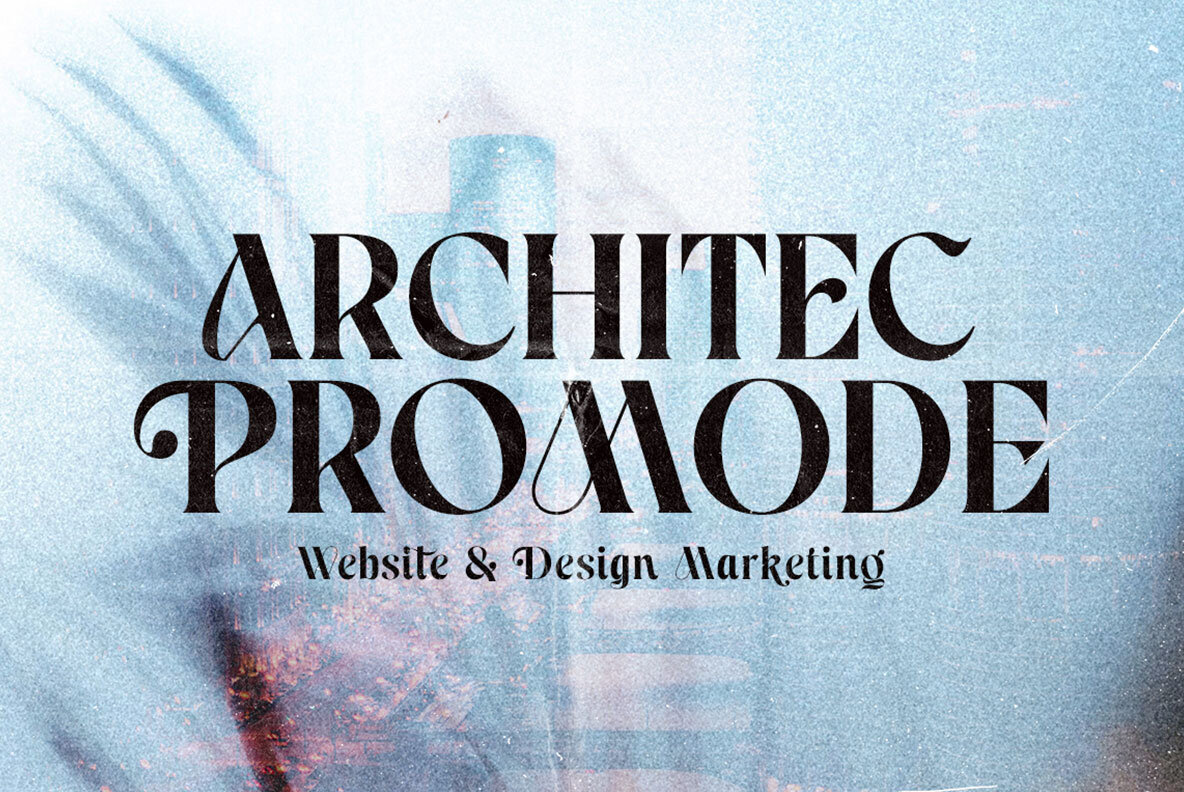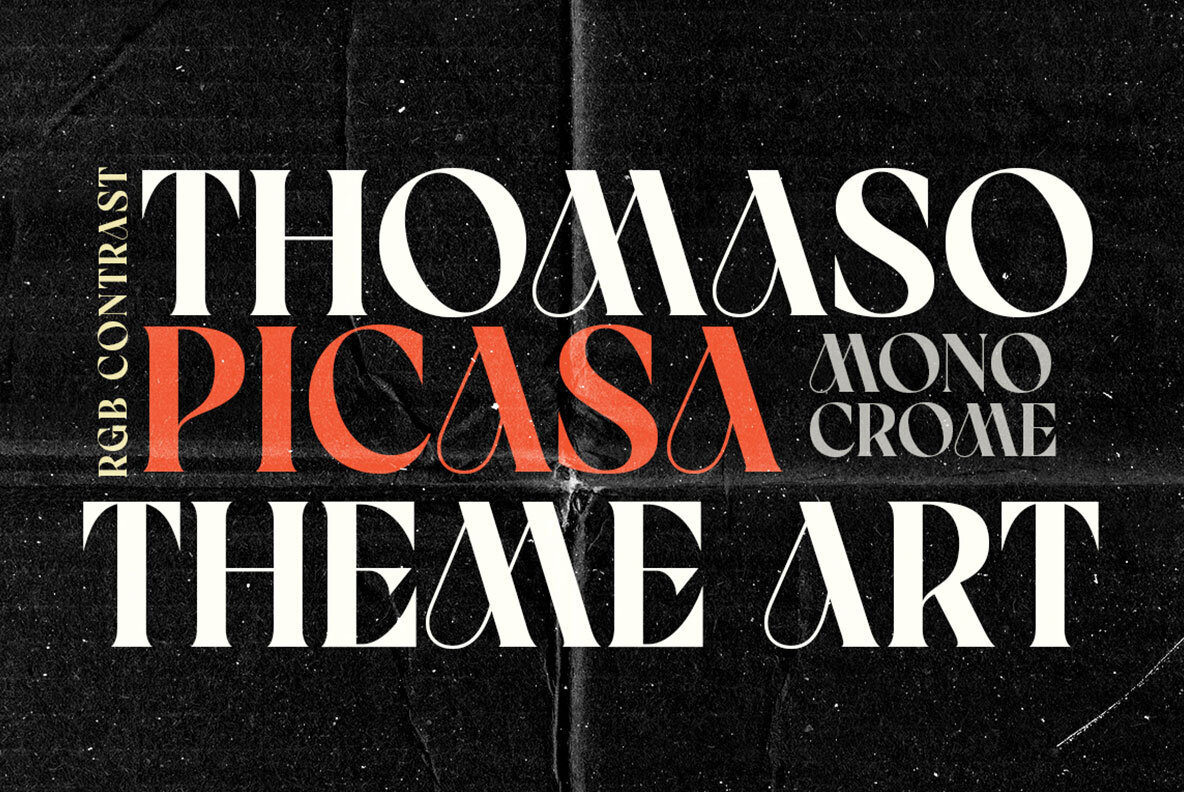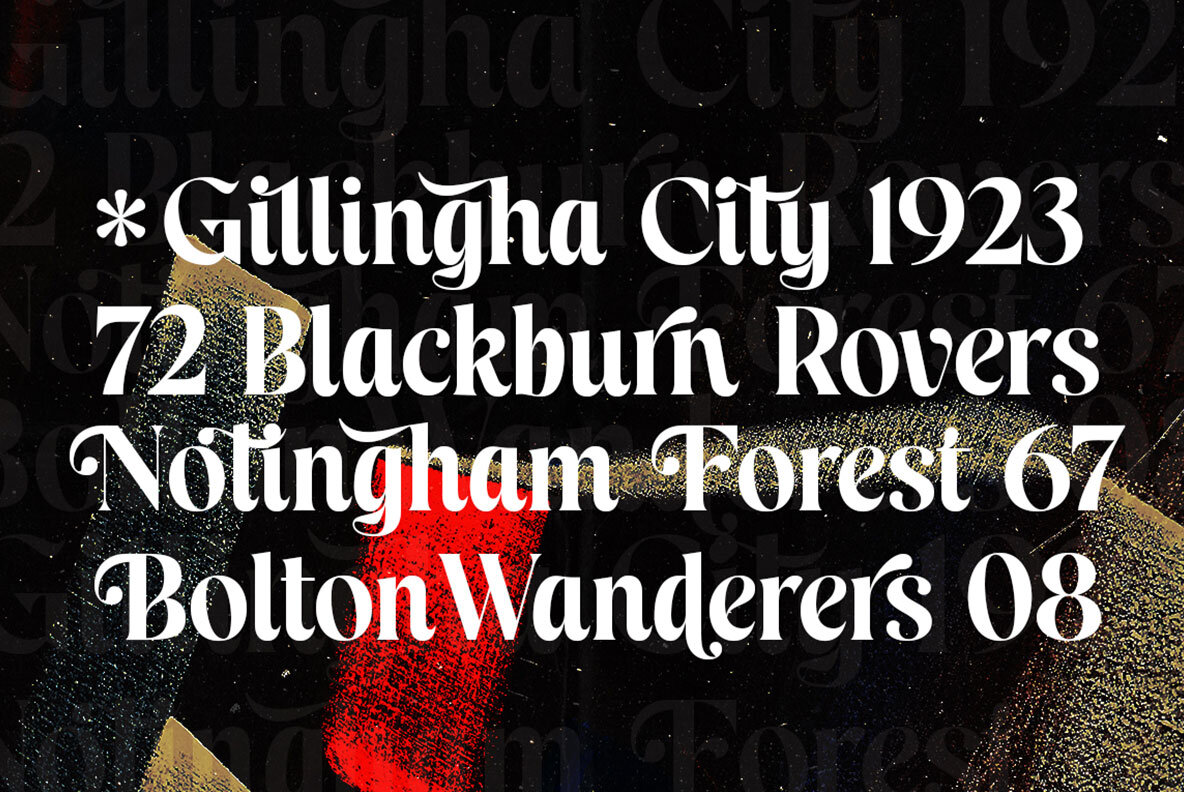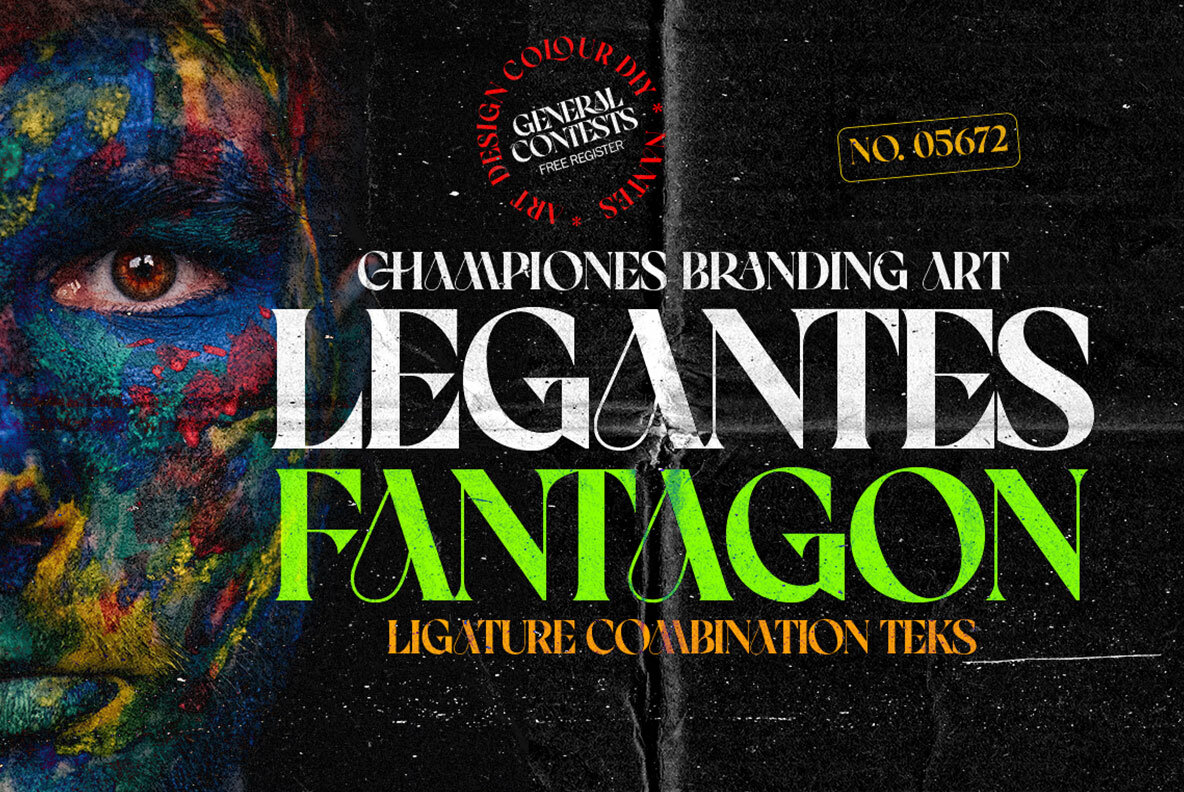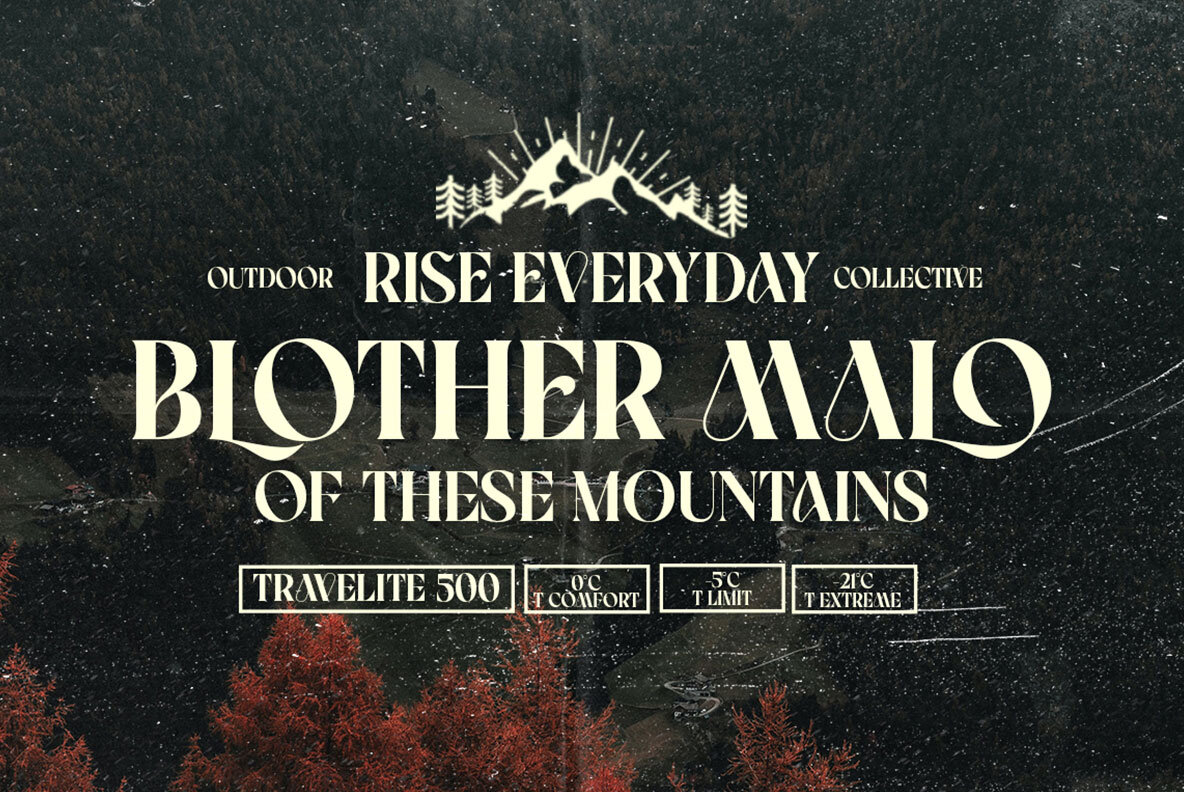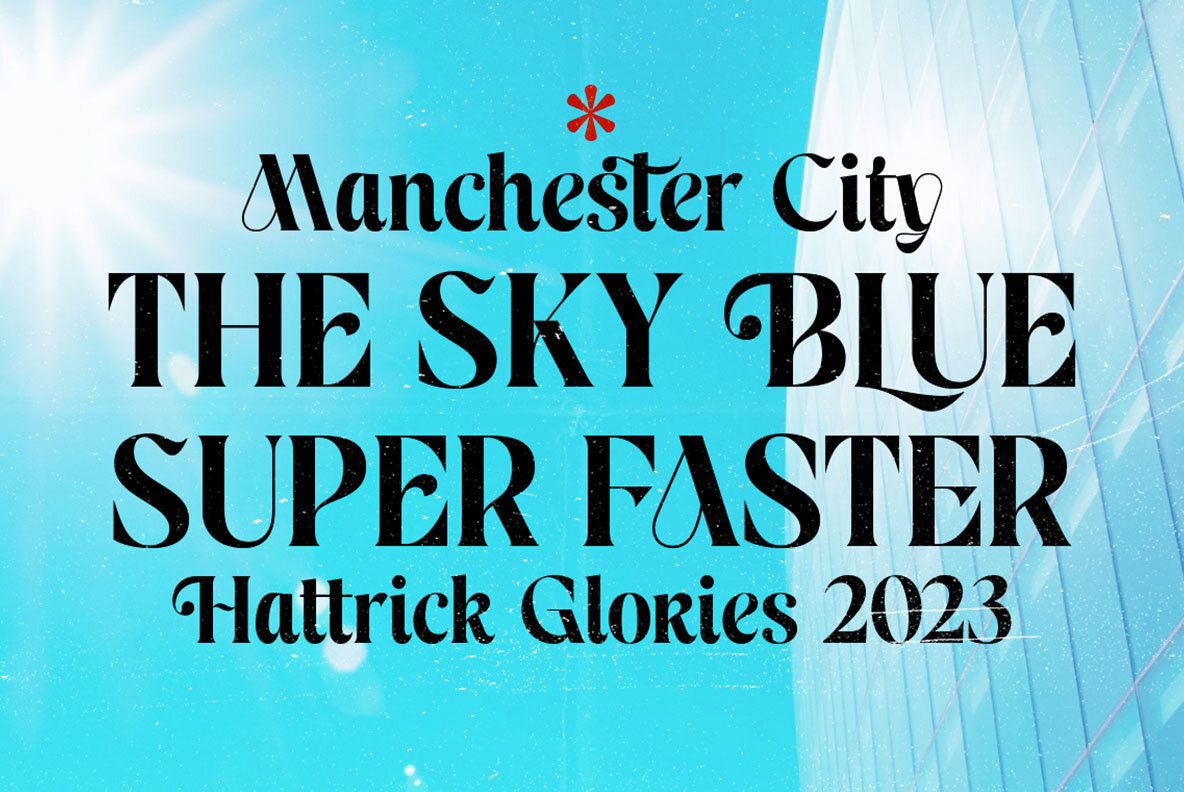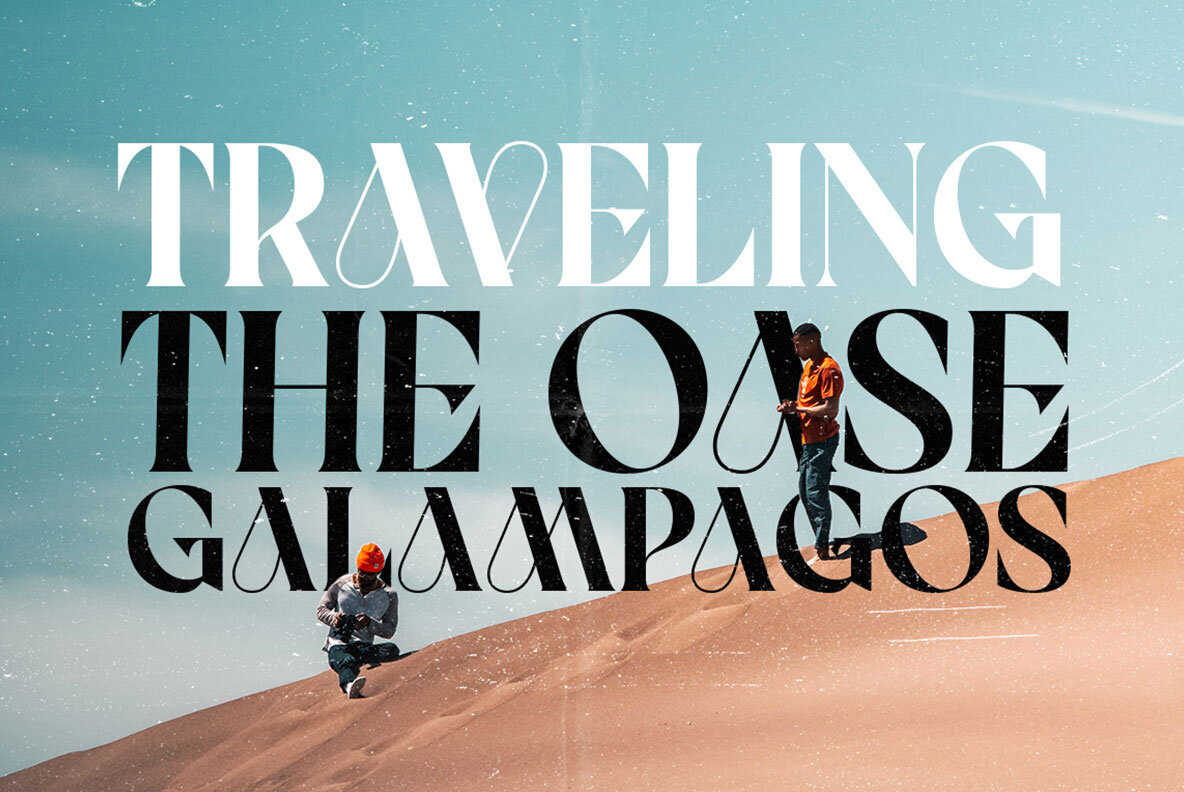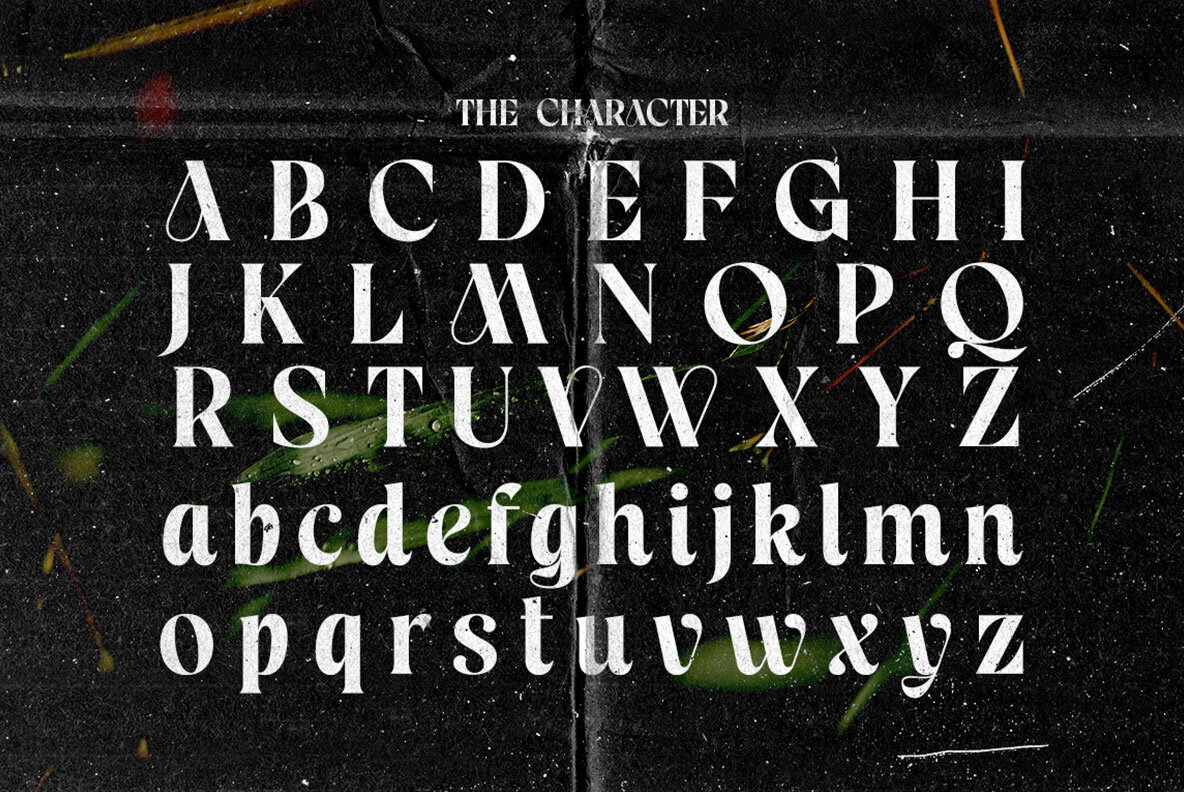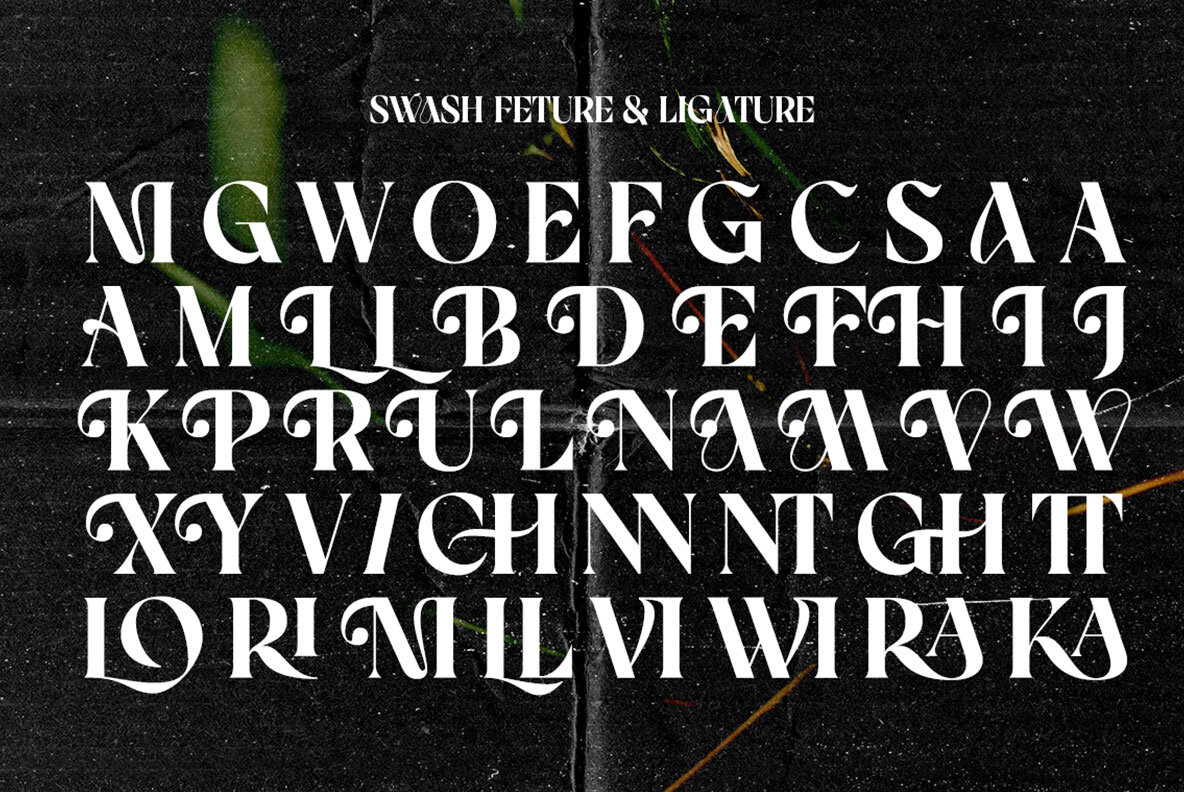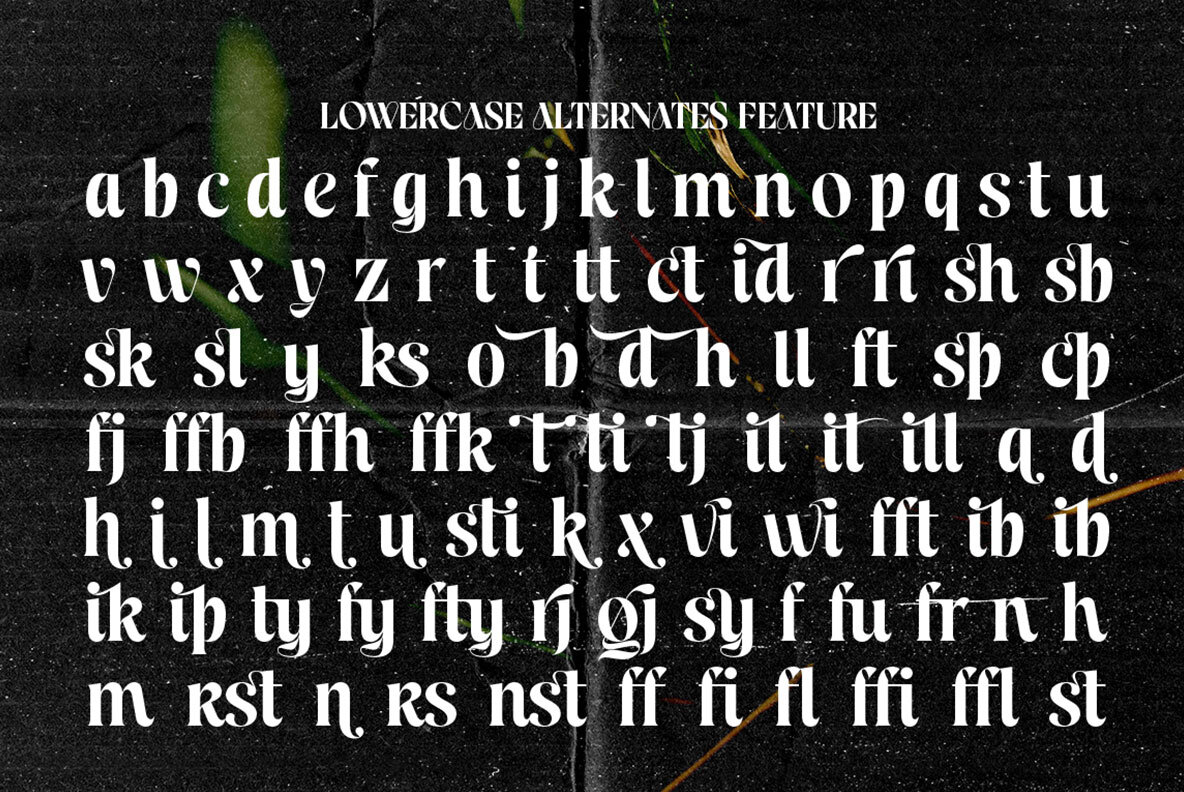
Celion is a serif display type with a nonsensical feel. modern high contrast with bright positive character. The clean shapes and slightly conical edges of the letters create a welcoming atmosphere in any design. Including ligatures, custom alternative glyphs, the Celion font is perfect for headlines, magazines, logotypes, food packages, advertisements and many others.
• All Caps Font with different uppercase and lowercase
• Alternates and Ligatures